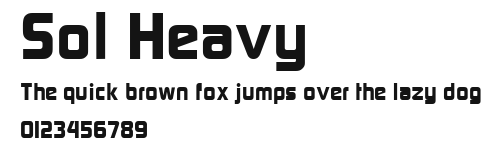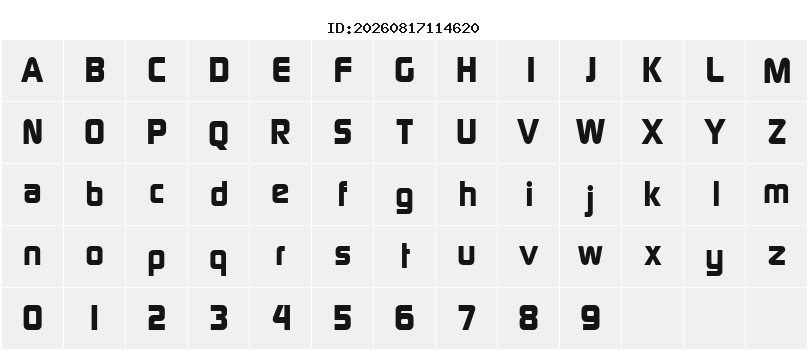
Sol Heavy Preview
• Font Name: Sol Heavy
• Full Font Name: Sol Heavy Regular
About Sol Heavy.ttf
Sol Heavy.ttf is a modern, elegant sans-serif font designed for ultimate readability and visual harmony. Perfect for branding, headlines, web design, and print materials.